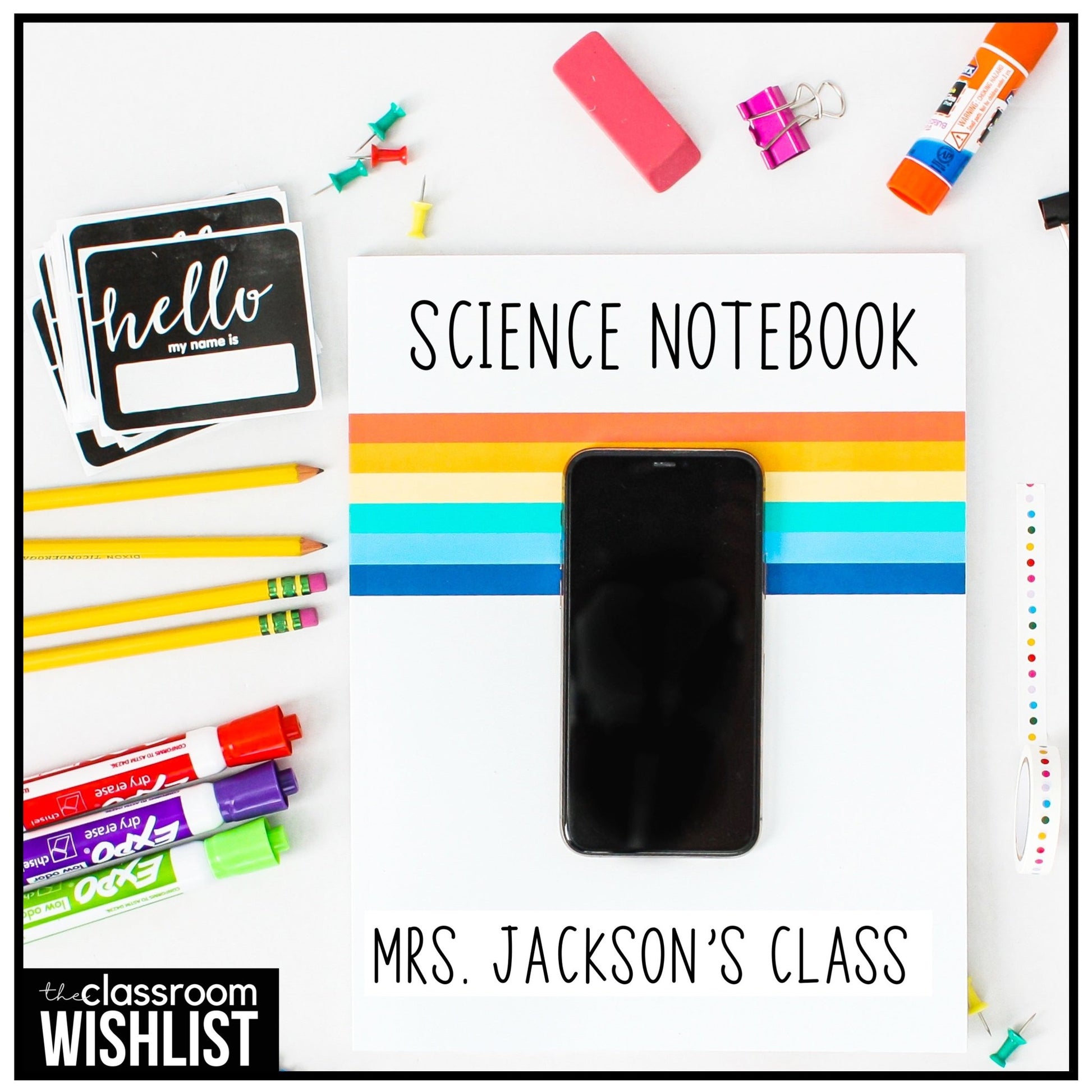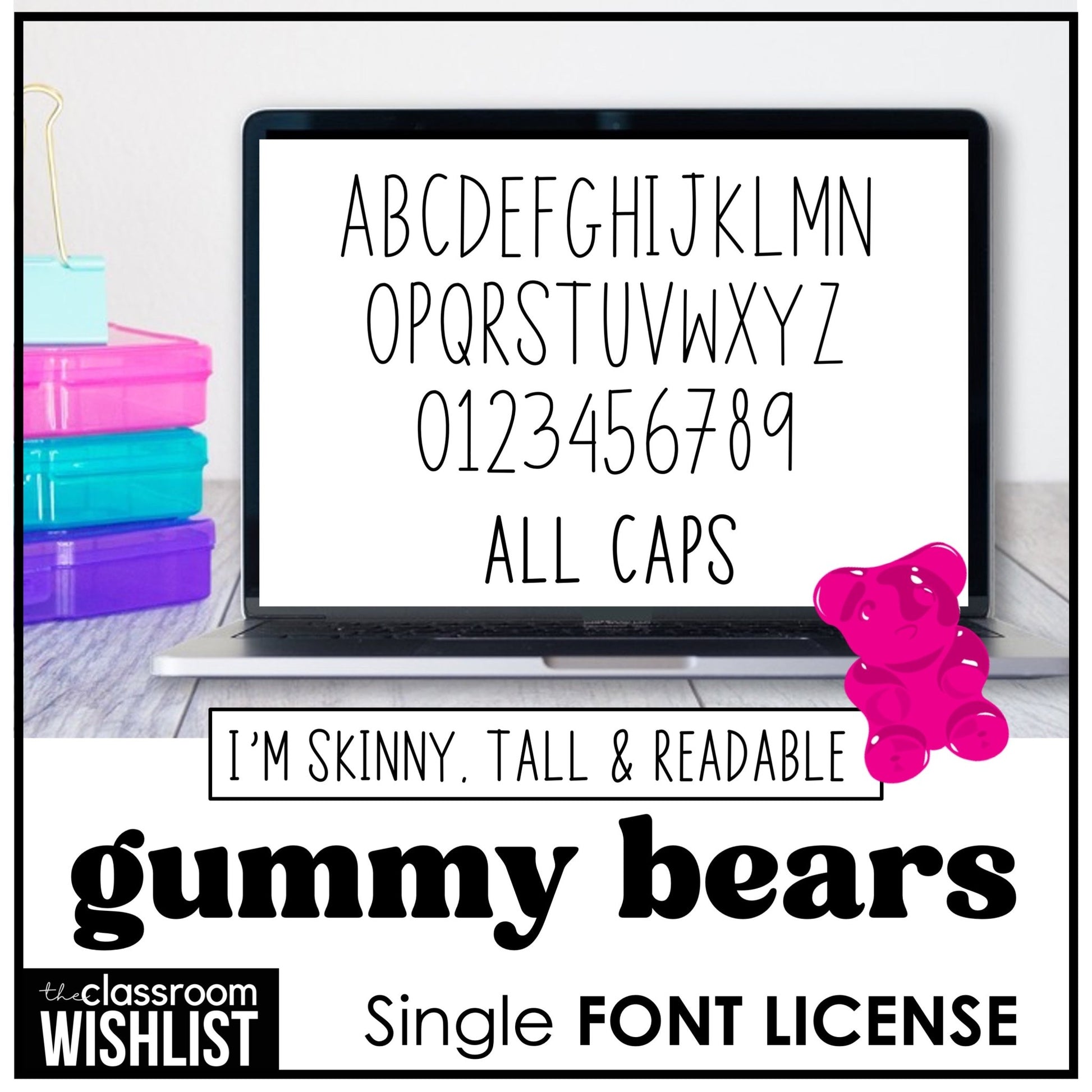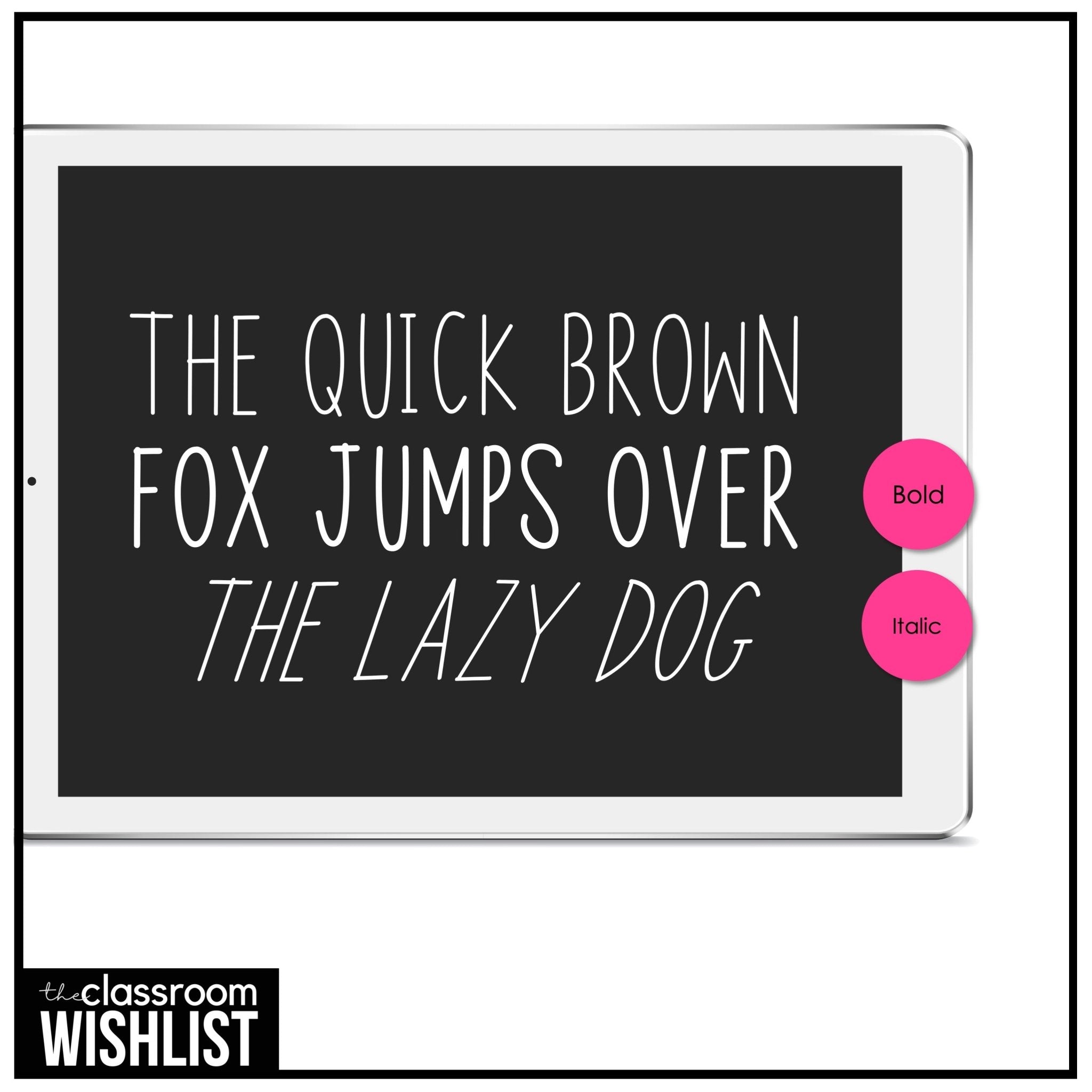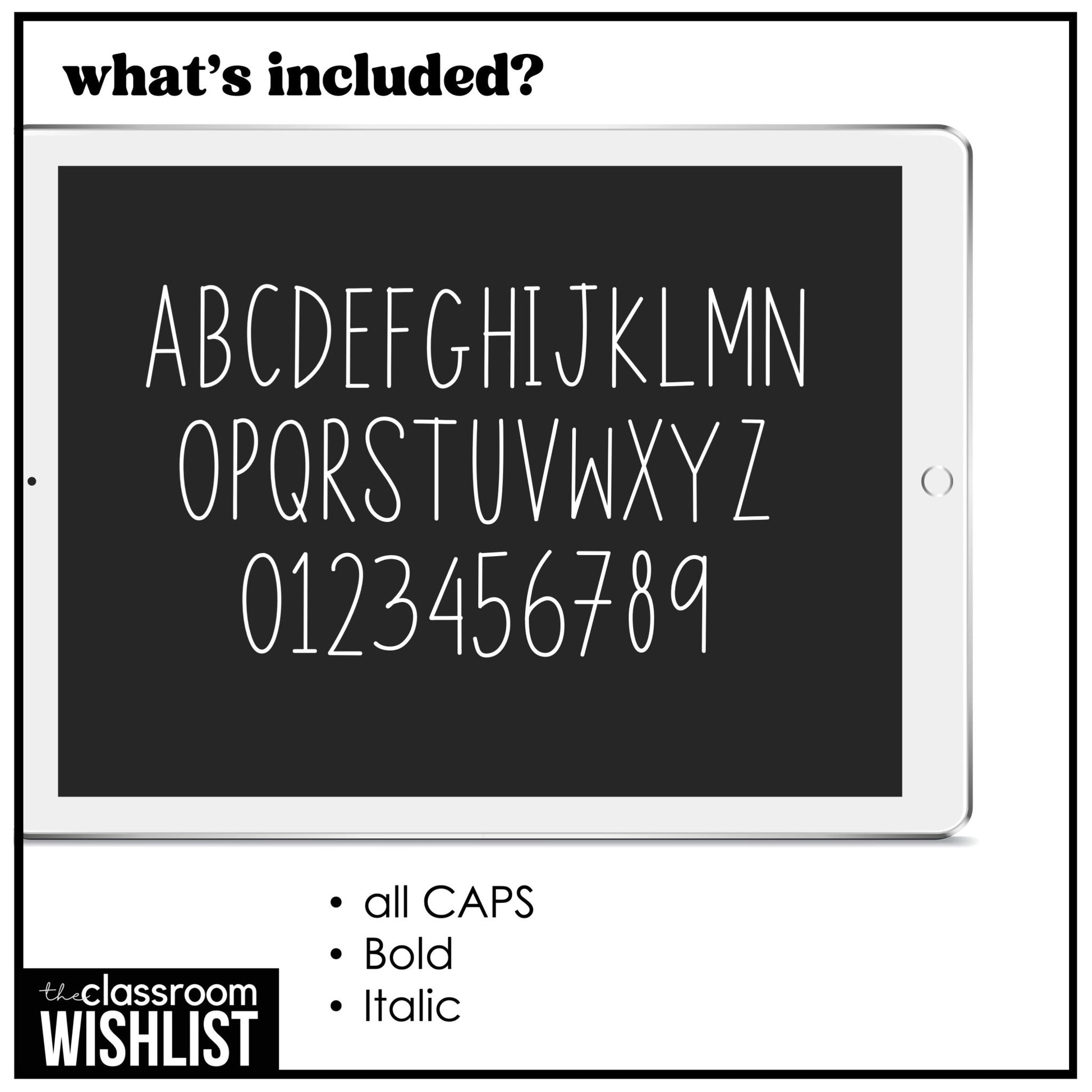
Tall - Skinny - Readable Handwritten Font - Single Font License for GUMMY BEARS
Bring a modern, stylish look to your classroom resources and digital projects with the Gummy Bears Font! This tall, skinny, all-caps font was designed to be clean, easy-to-read, and versatile, making it a favorite for bulletin boards, classroom posters, titles, and digital resource creation. With a bold handwritten style, it works perfectly for both fun and professional projects.
- Uppercase A–Z (all caps font)
- Numbers and punctuation included